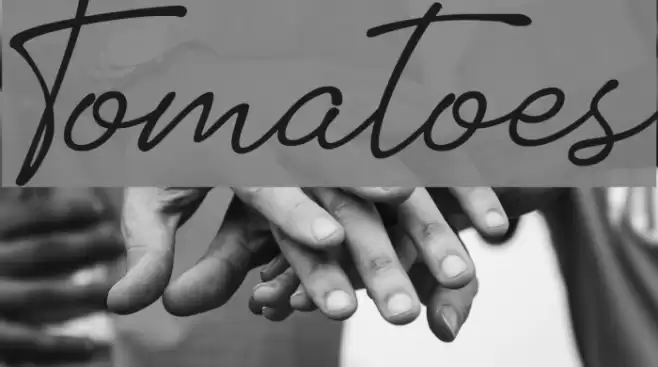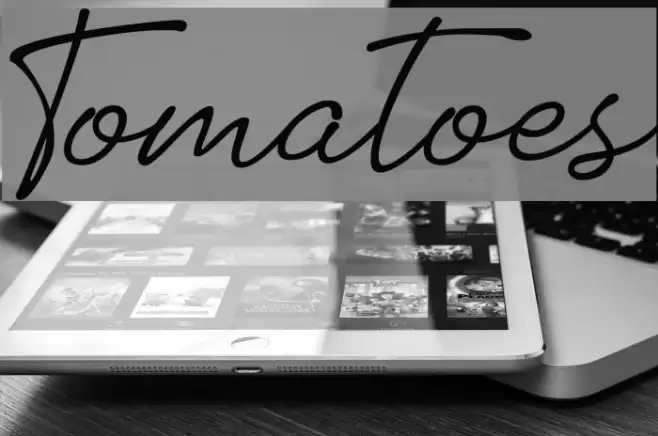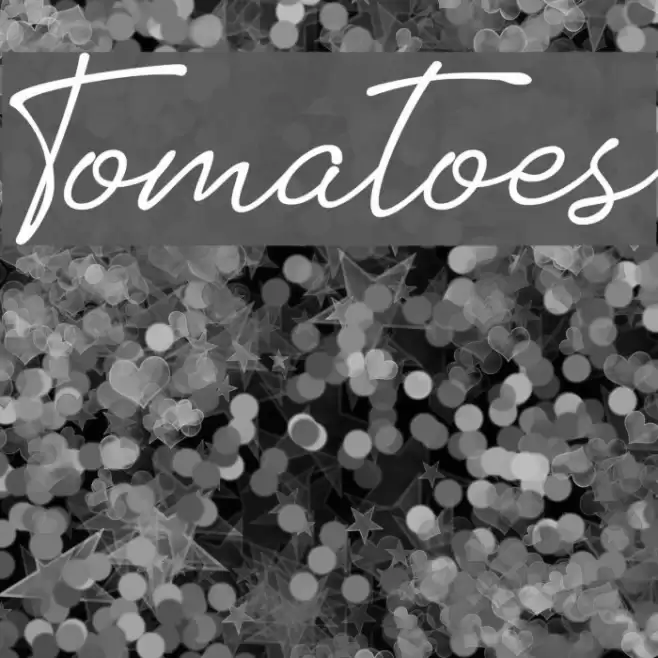
Tomatoes Font
Tomatoes Description
This font features a flowing, cursive script style that exudes elegance and sophistication. The letters are interconnected with smooth, sweeping strokes, giving it a handwritten appearance. The uppercase letters are slightly more ornate, with flourishes that add a touch of flair, while the lowercase letters maintain a consistent, flowing rhythm. The font maintains a balanced weight throughout, ensuring readability while preserving its decorative nature. It is well-suited for projects that require a personal touch, such as invitations, greeting cards, or branding materials that aim to convey a sense of elegance and warmth.
A flowing, cursive script font with elegant, interconnected strokes from Uncategorized fonts.
- Proposed Projects: Ideal for wedding invitations, greeting cards, personal branding, and elegant packaging.
- Overall Style: Elegant, Handwritten
- Use Case: Invitations, Greeting cards, Branding